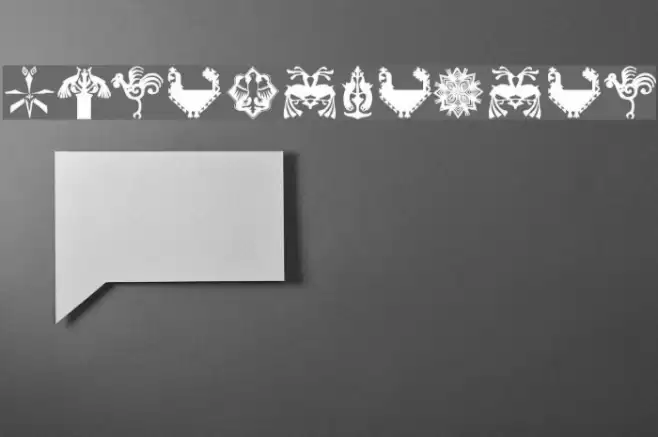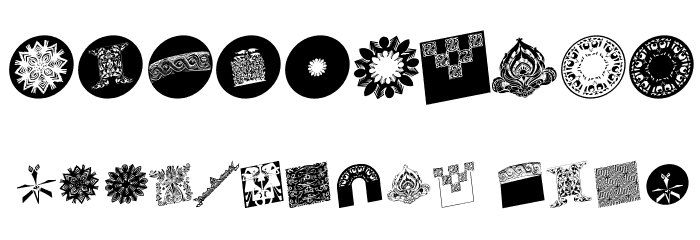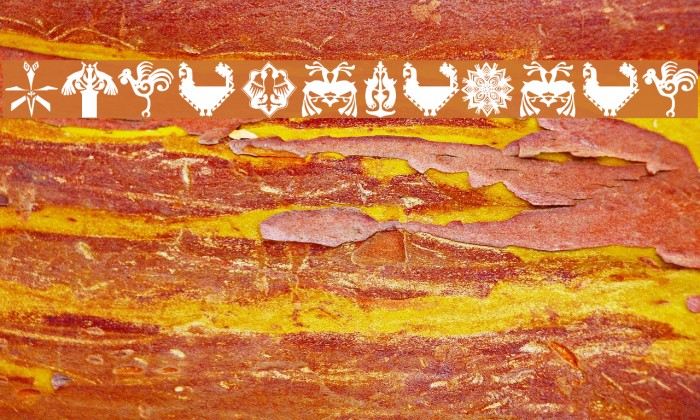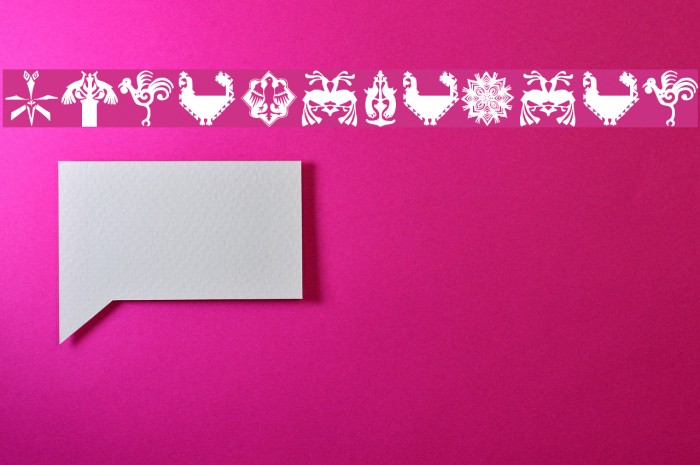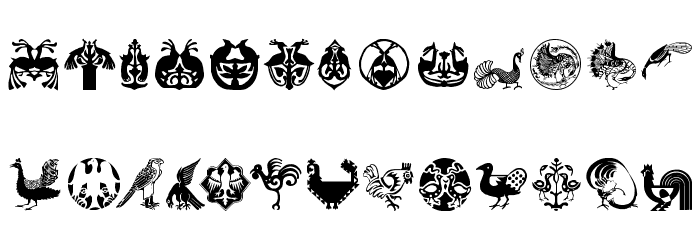
AbstractBats Font
AbstractBats Description
A collection of abstract, ornamental, and animal-themed black and white dingbat glyphs, featuring intricate floral motifs, geometric shapes, birds, and decorative patterns. Each character is a unique pictorial symbol rather than a traditional alphanumeric glyph.
Ornamental dingbat set with abstract and animal motifs from Uncategorized fonts.
- Proposed Projects: Decorative borders, invitations, scrapbooking, logo accents, pattern design, artistic dividers.
- Overall Style: Decorative, Abstract, Ornamental
- Use Case: Icons, Borders, Decorative elements, Scrapbooking